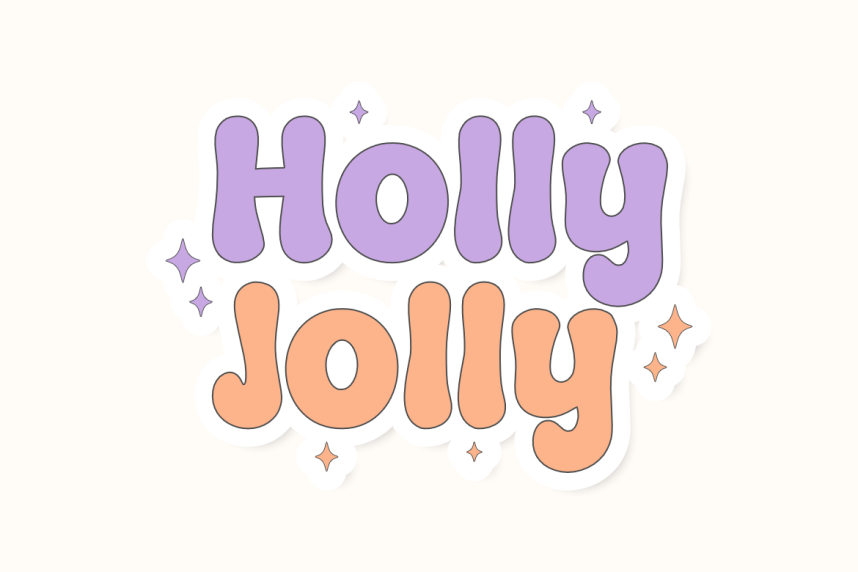
Marrie Matter Font
Marrie Matter Font is a versatile bubble display font that radiates playful energy, happiness, and a cheerful vibe. Featuring thick, rounded, and bouncy letterforms, this typeface is expertly crafted to give your designs a soft, lovely, and friendly appearance. Its bold and substantial construction is specifically optimized for the crafting community, ensuring a seamless and frustration-free experience for vinyl cutting, sublimation, and high-quality digital printing.